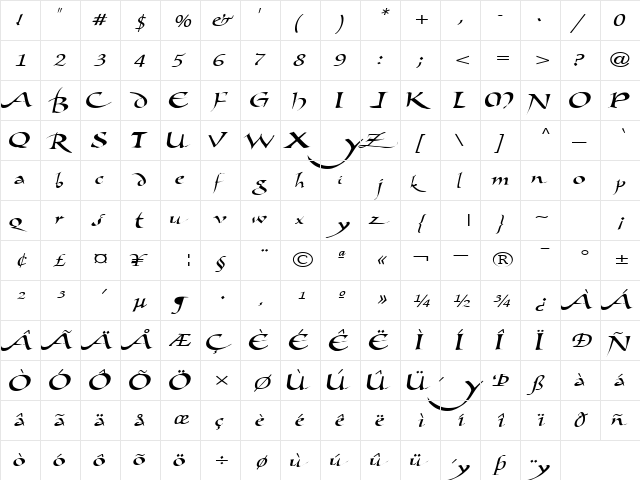
DangerousScript27 Regular
Design Context for DangerousScript27 Typeface
DangerousScript27 brings a calligraphic fluidity to the page — its connecting strokes and expressive curves give it an unmistakably human quality.
Font Pairing: Combine DangerousScript27 with a simple geometric sans for maximum contrast — the tension between flowing curves and clean structure is a classic typographic pairing.
Pro Tip: Use DangerousScript27 for short runs of text — names, titles, or taglines. Extended body copy in script faces tires the eye quickly.